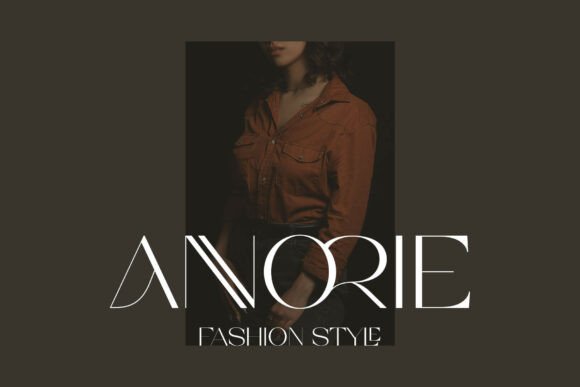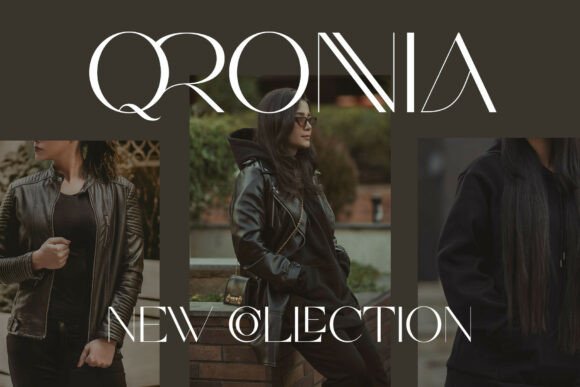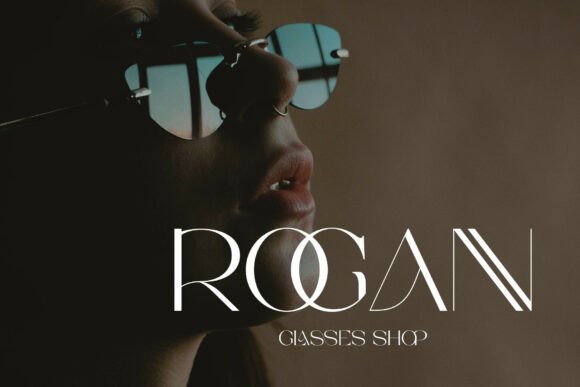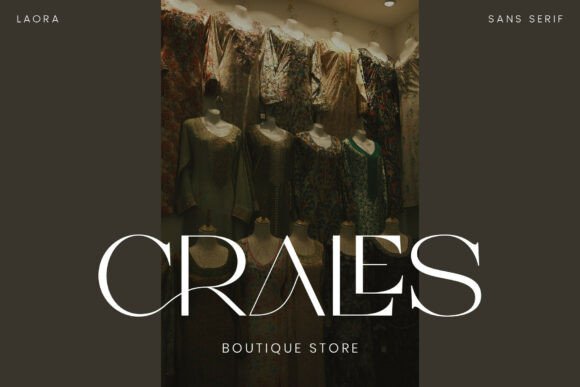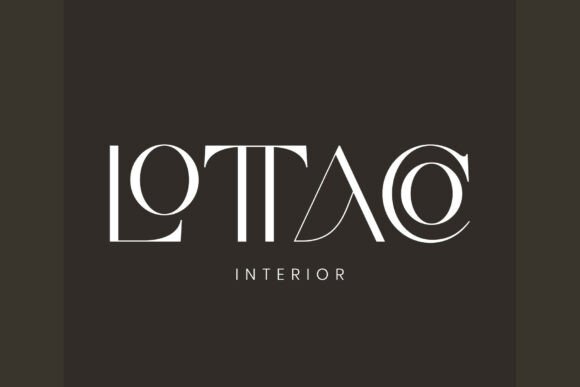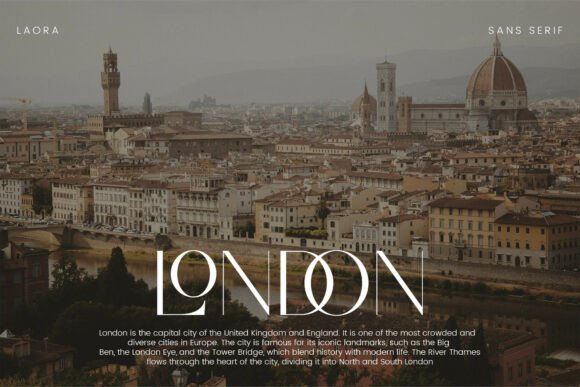
Introduction to Laora Font
As a designer, there’s nothing quite like the thrill of starting a new project. The blank page stares back at you, begging to be filled with creativity and imagination. And when you need a font that’s both elegant and versatile, you can count on the Laora Font to deliver. This high-quality typeface is perfect for a wide range of creative projects, from designing templates and brochures to crafting logos and invitations.
The Laora Font is a game-changer for designers, offering a clean and modern aesthetic that’s both sophisticated and easy to use. With its transparent background and simple installation process, it’s the perfect addition to any design resource. Whether you’re working on a free download project or a paid commission, this font is sure to elevate your work to the next level.
Key Features of Laora Font
- High-quality, professional font design perfect for creative projects
- Includes a range of characters, including uppercase and lowercase letters, numbers, and punctuation marks
- Unique, hand-crafted design that adds a touch of elegance and sophistication to any creative project
Honest Review: Laora Font
As a designer, I’m always on the lookout for high-quality fonts that can elevate my creative projects. I recently stumbled upon the Laora Font, and I’m excited to share my honest review with you.
- Unique and elegant design style that adds a touch of sophistication to any project
I’ve been using the Laora Font for several projects, and I’ve been impressed with its versatility. From headings to body text, it’s a great choice for any creative project.
- Only available in a limited range of weights, which may not be ideal for projects requiring multiple font styles
- No italics or obliques available, which may limit its use in certain design scenarios
Overall, the Laora Font is a solid addition to any design resource library. While it may have some limitations, its unique design style and free download make it a great choice for designers looking to add a touch of elegance to their projects.
Laora Font
The Laora Font is a high-quality design resource that can elevate your creative project with its unique and stylish typography. This free download is perfect for anyone looking to add a touch of sophistication to their designs.
Tips for Getting the Most Out of Laora Font
To get the most out of Laora Font, use it in conjunction with other design elements that complement its style. You can also experiment with different font sizes, colors, and arrangements to create a unique and eye-catching design.
Common Use Cases for Laora Font
Laora Font is perfect for a variety of creative projects, including logos, business cards, brochures, and social media graphics. Its transparent background makes it easy to use in combination with other design elements, and its high-quality design ensures that your project will stand out.